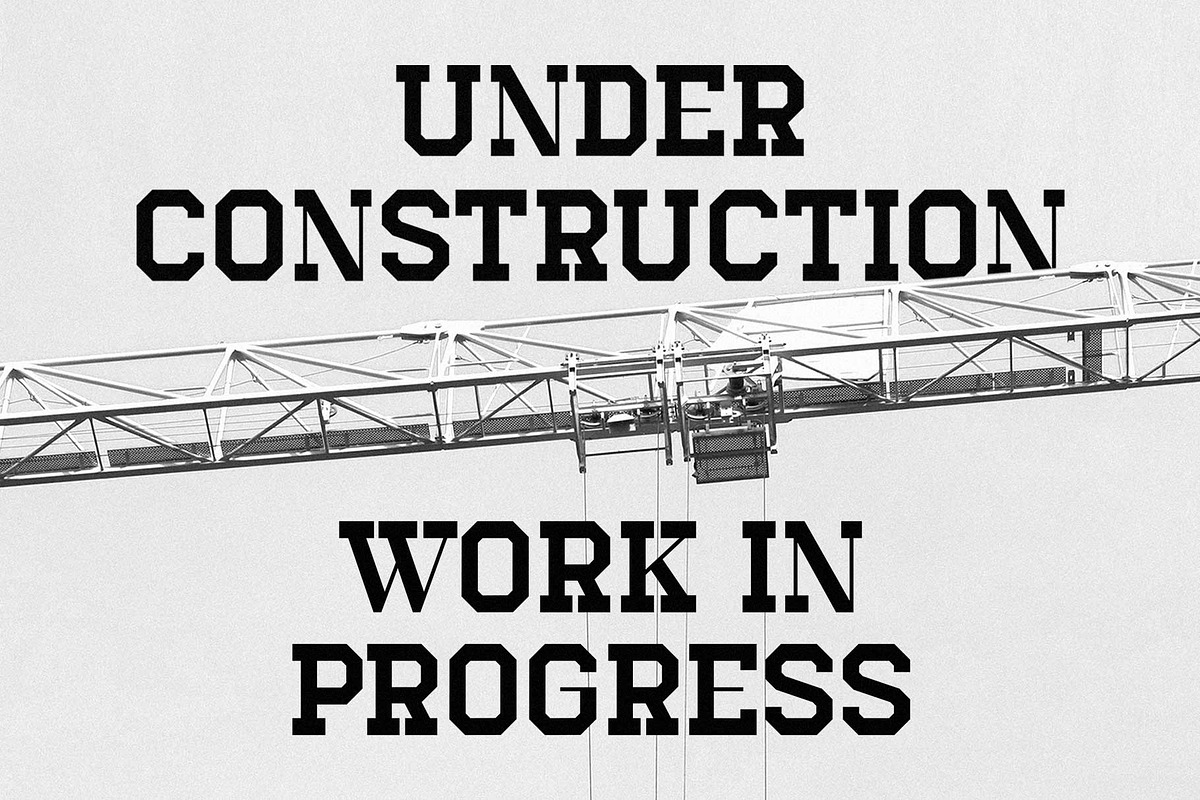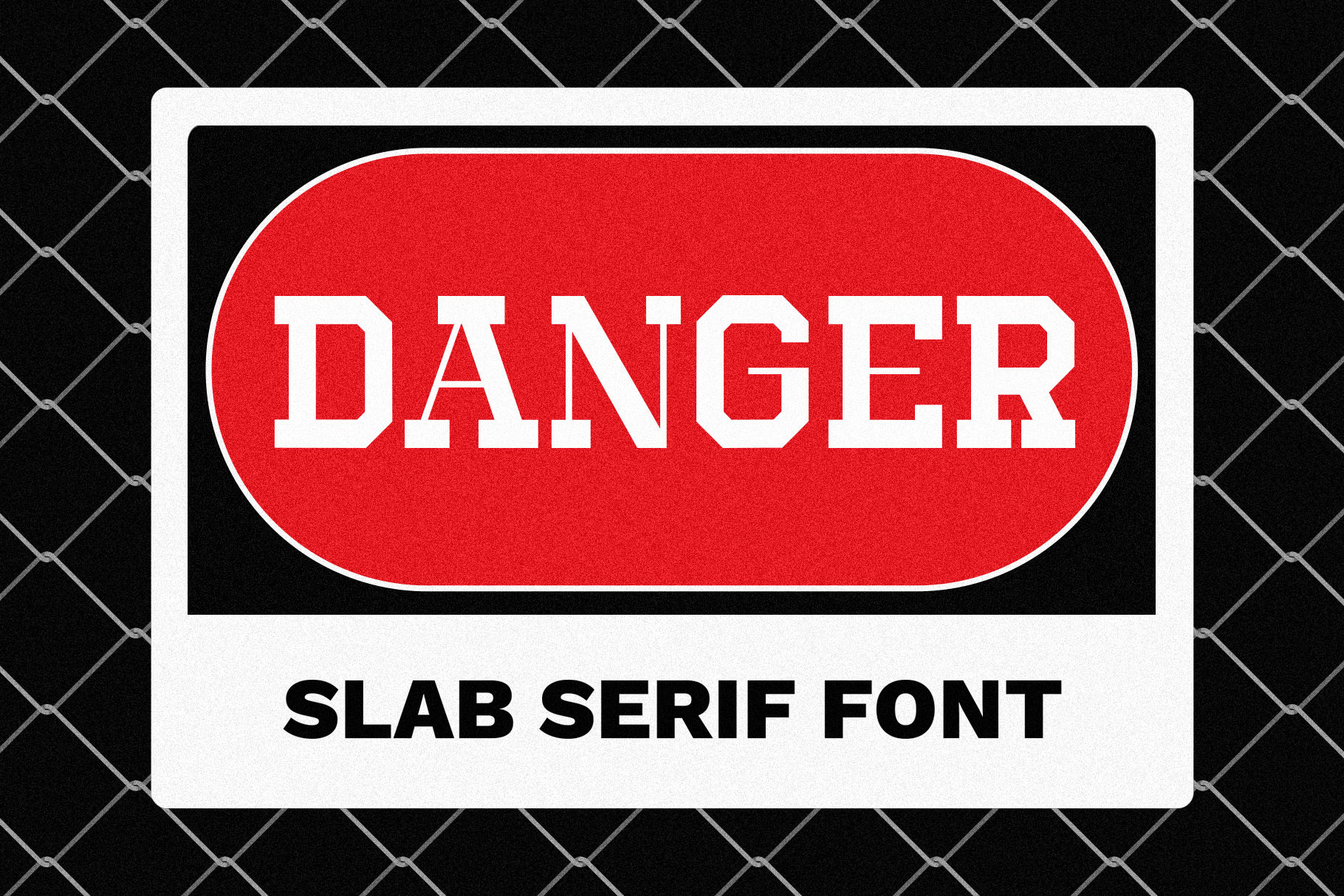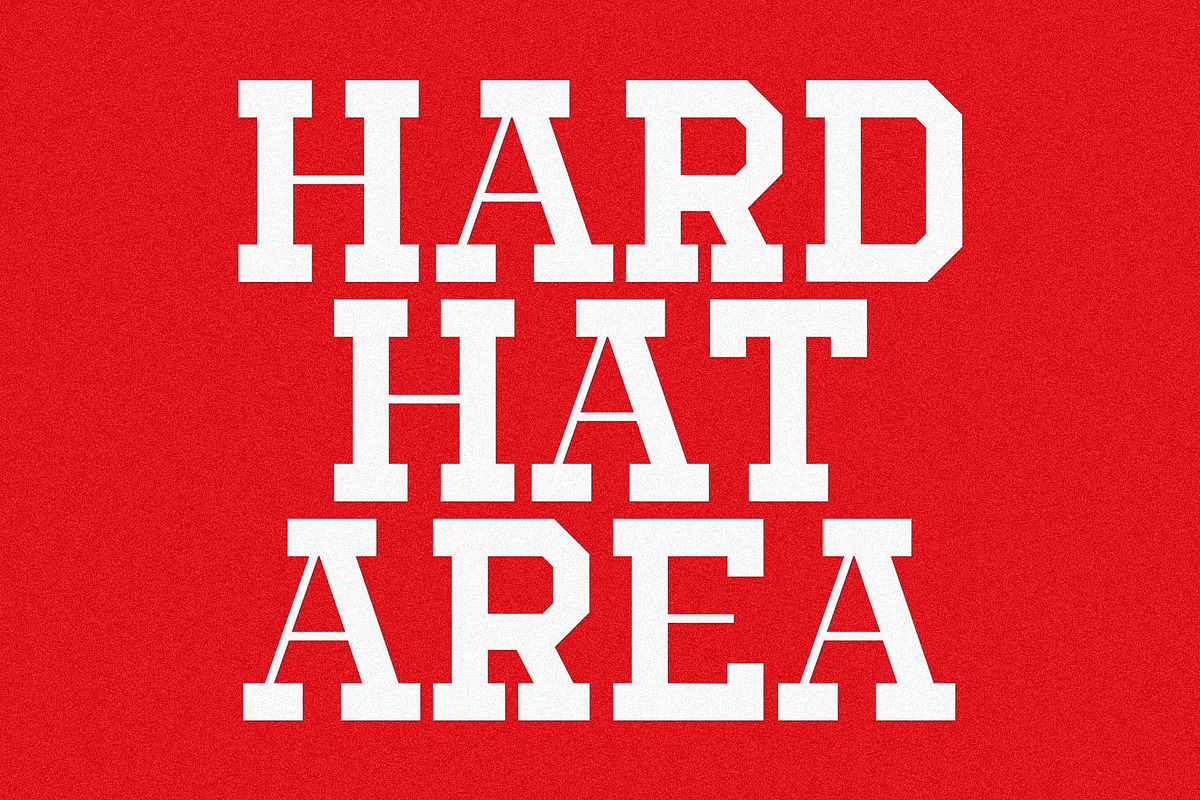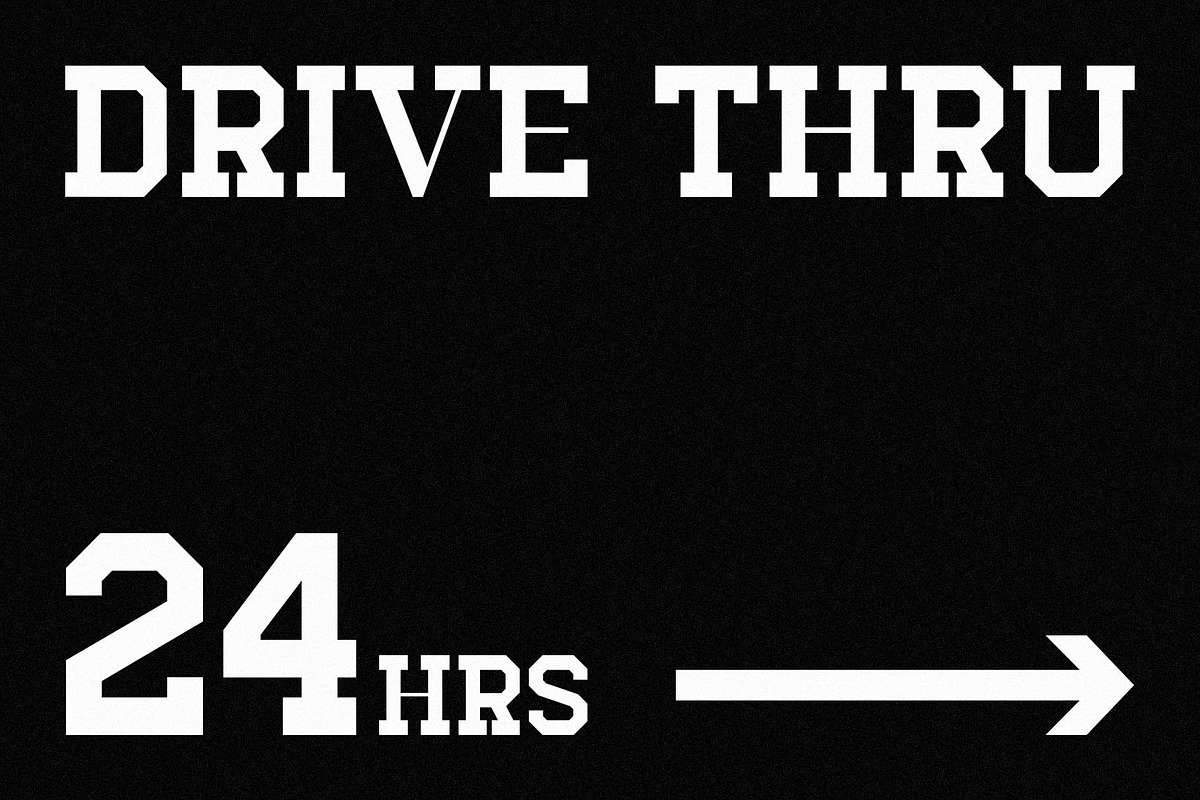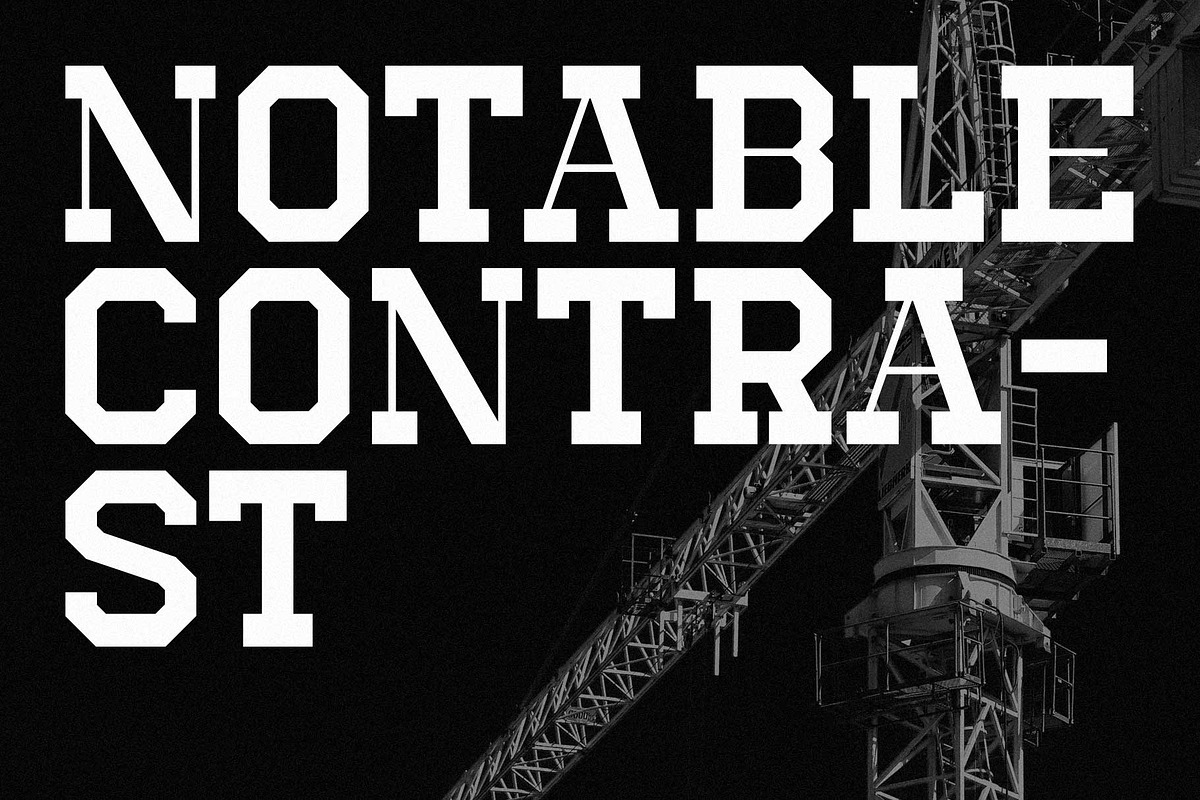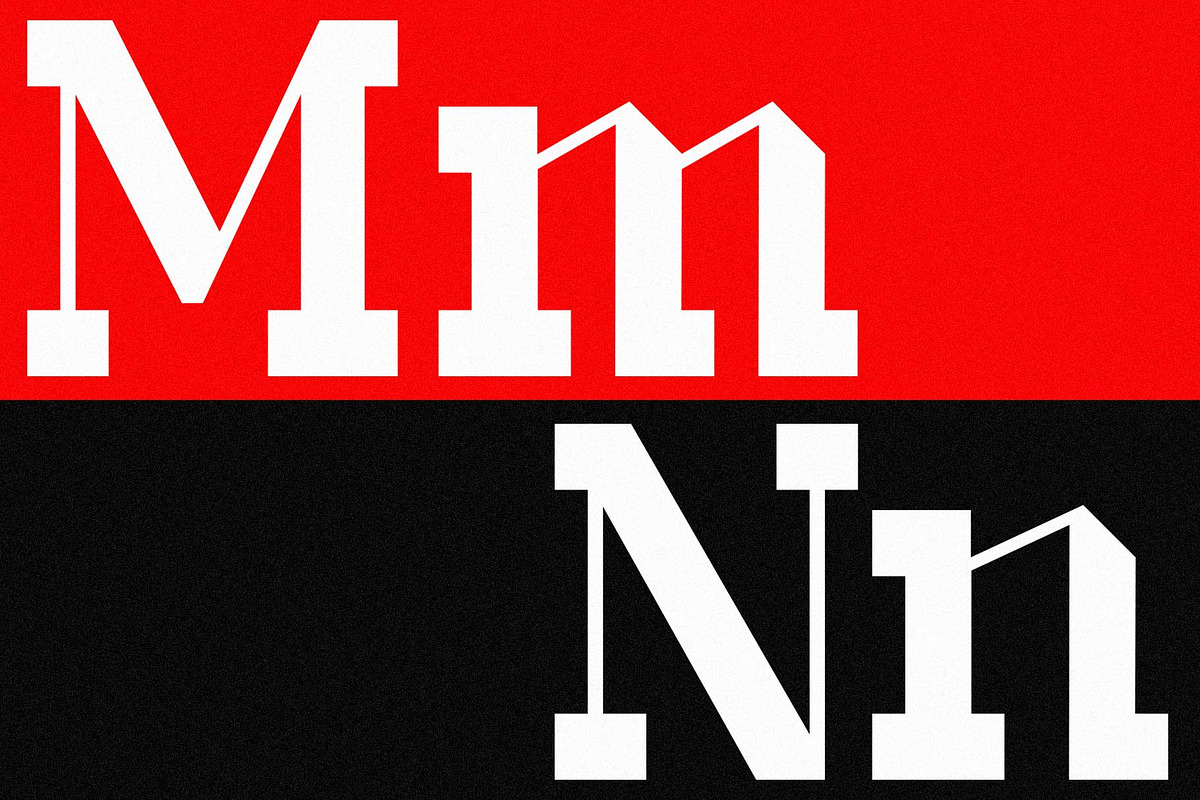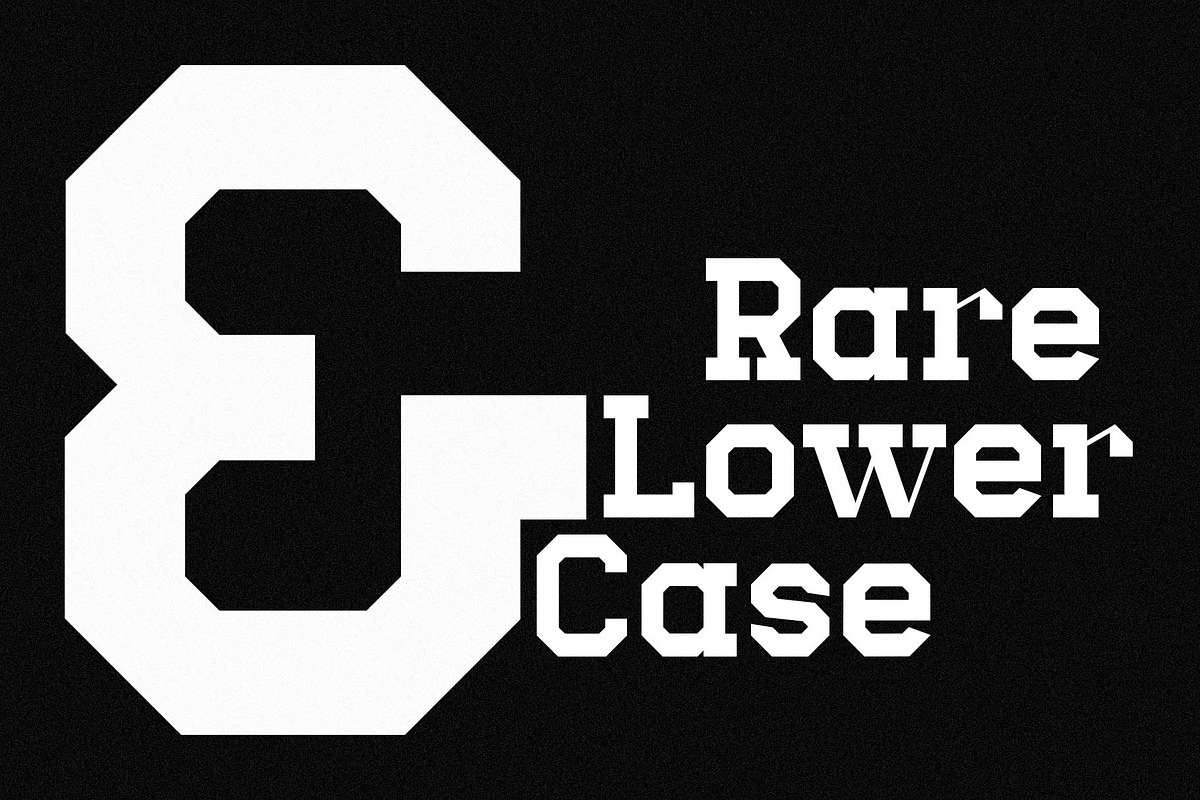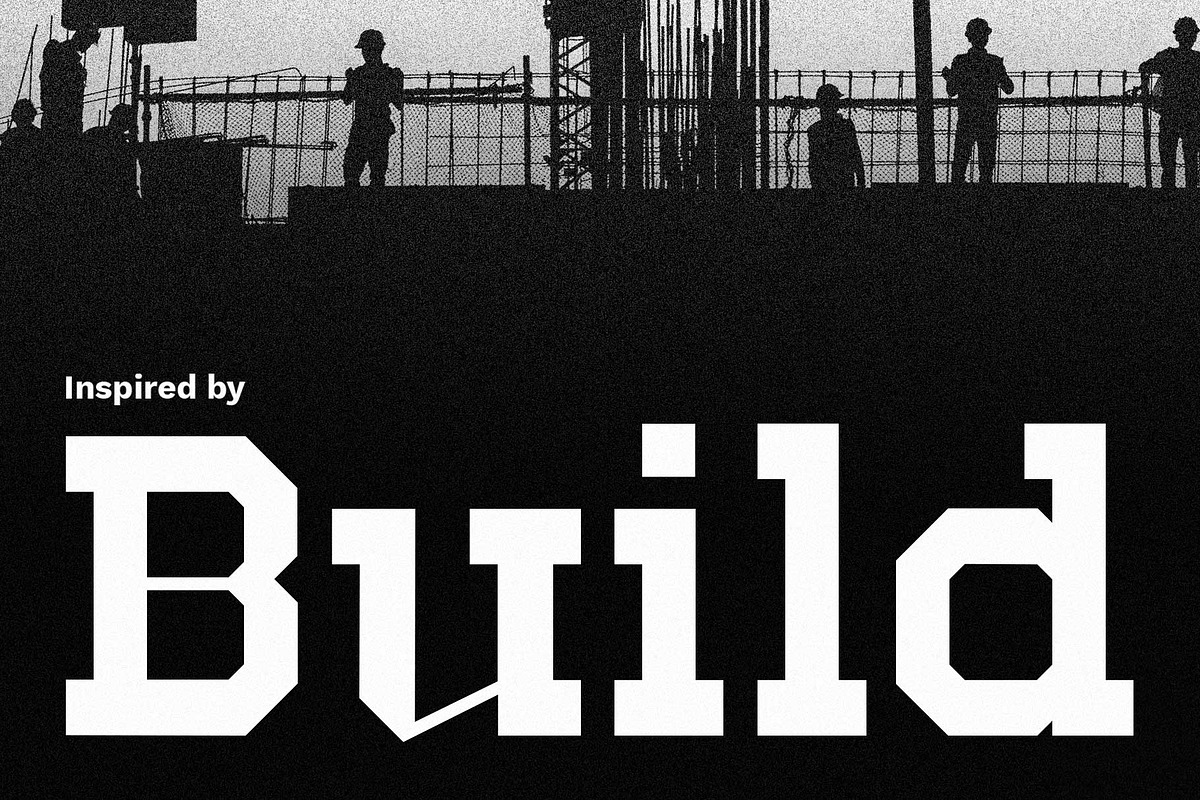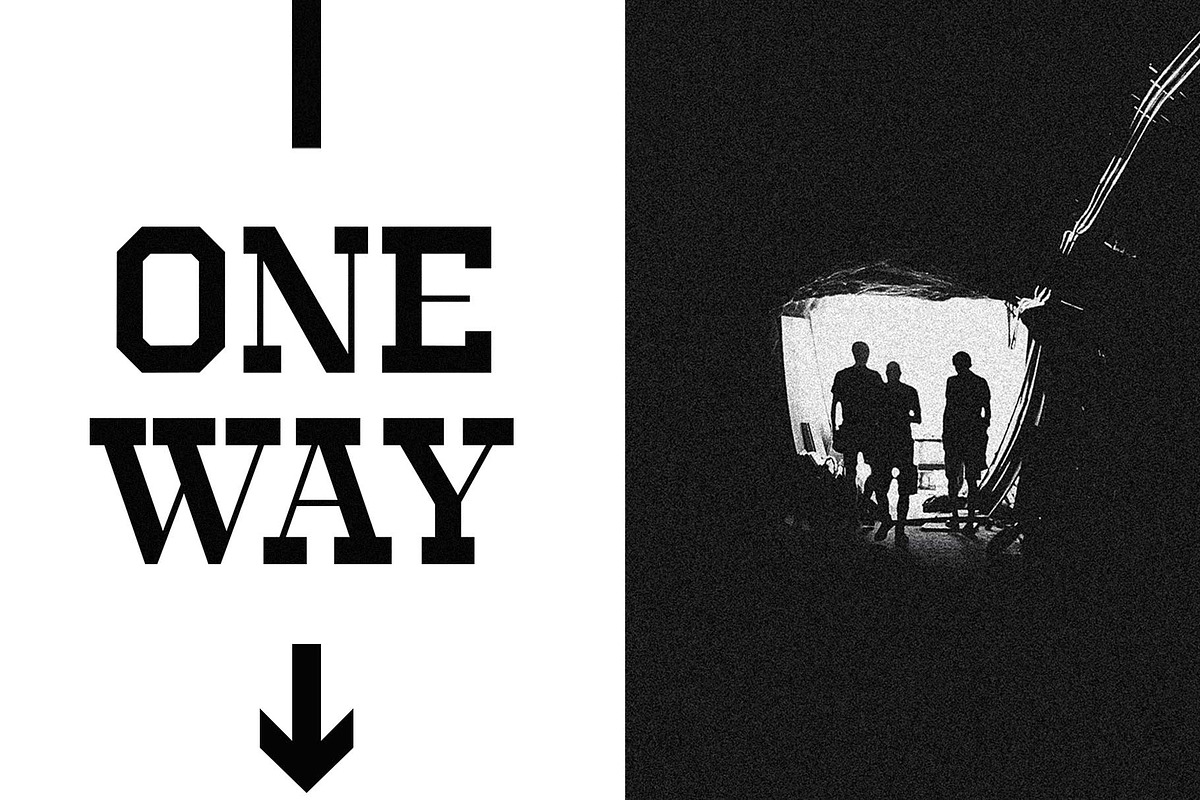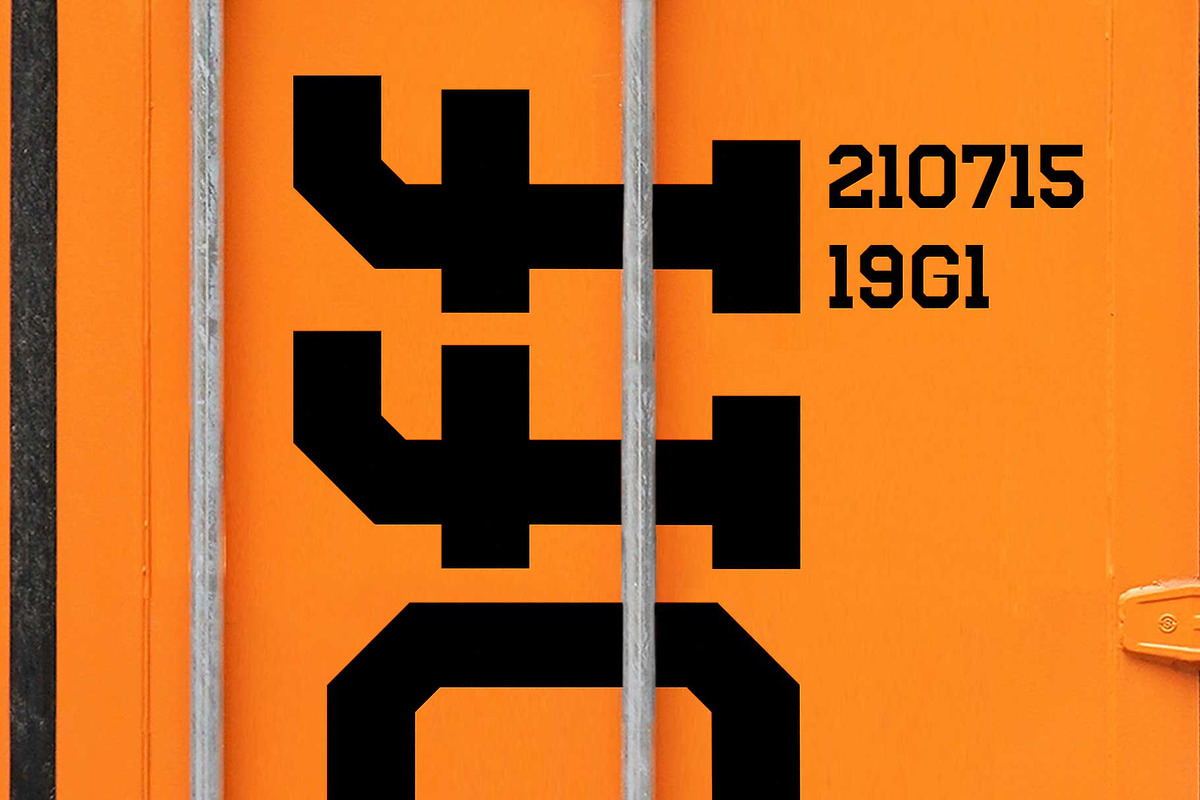
DANGER - Slab Serif Font
Danger slab serif font was inspired by construction sight. Danger has a notable contrast and lower case that is rare in common slab serif font. Thank you for click it! We really hope you guys enjoy Danger font and build up your creativity.